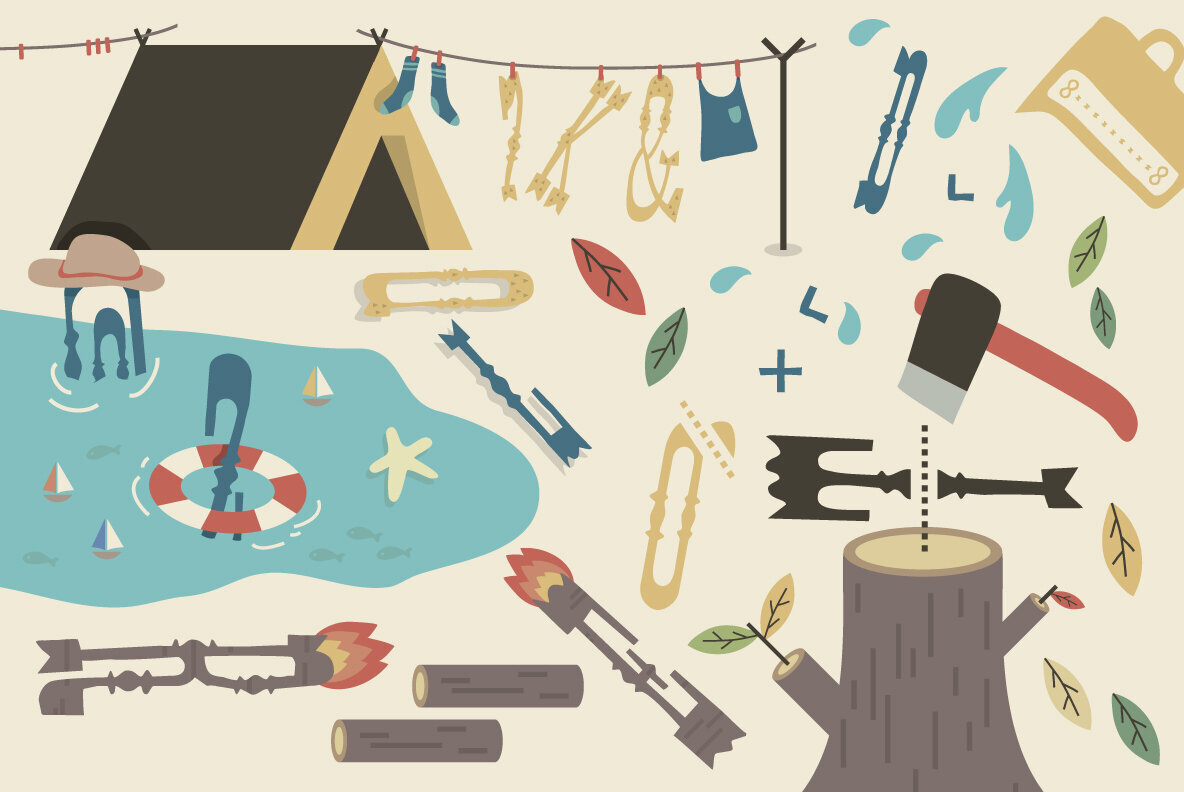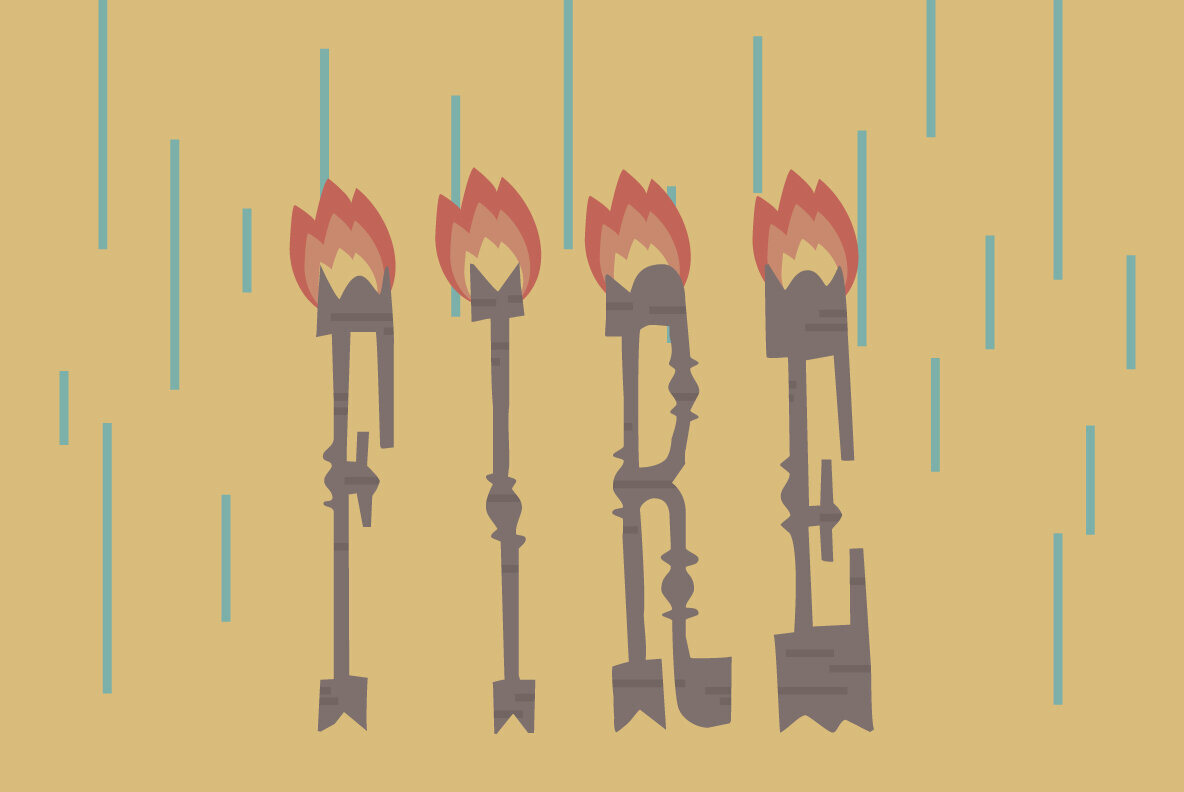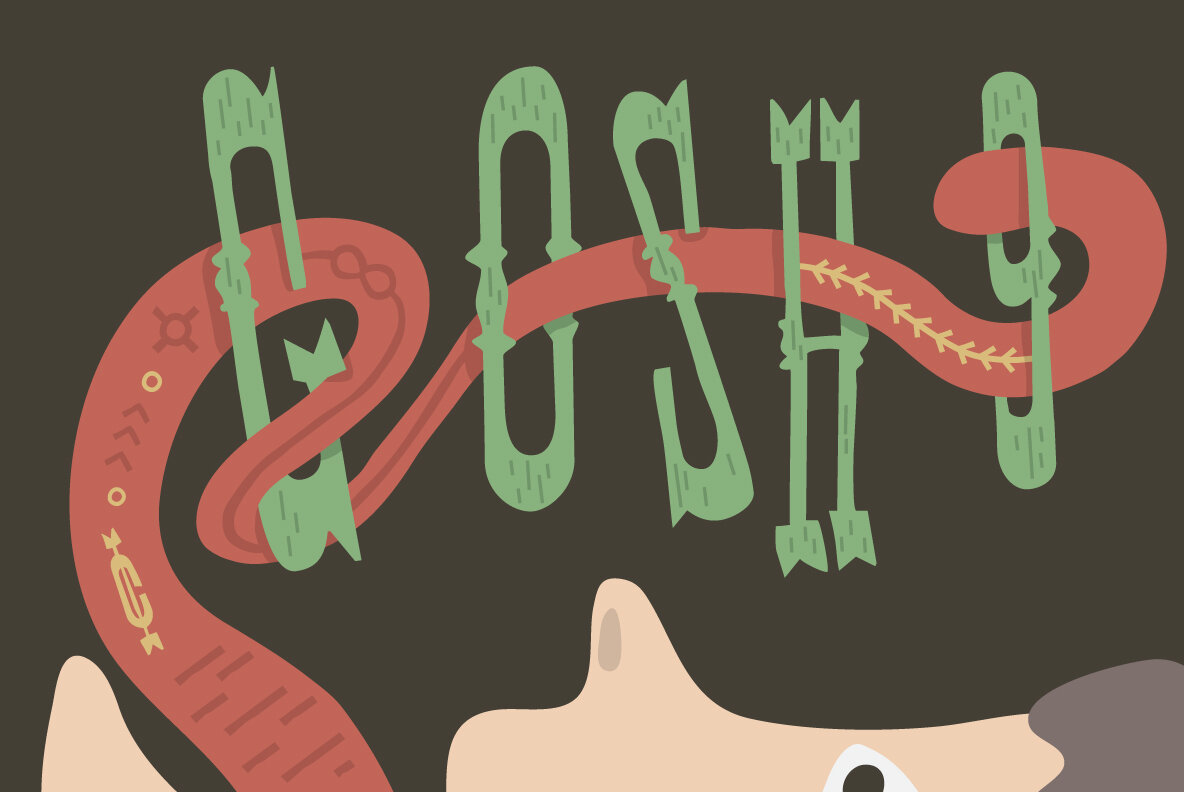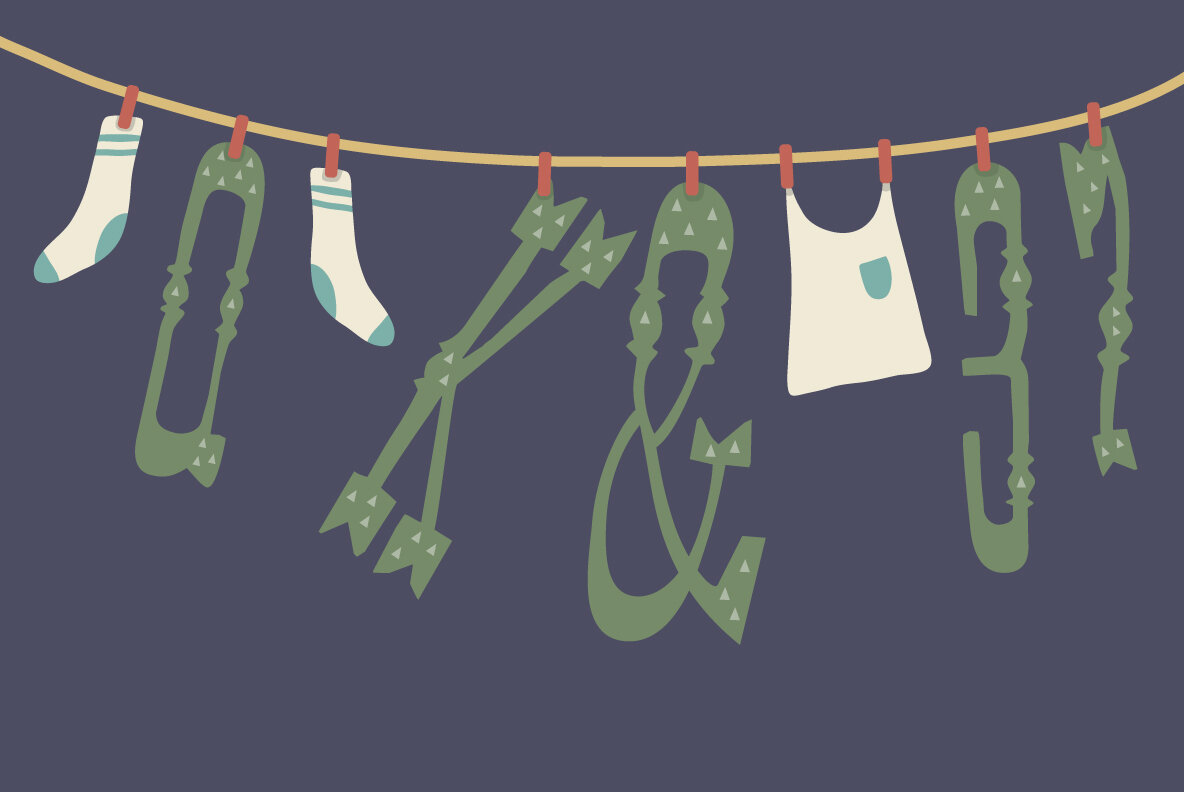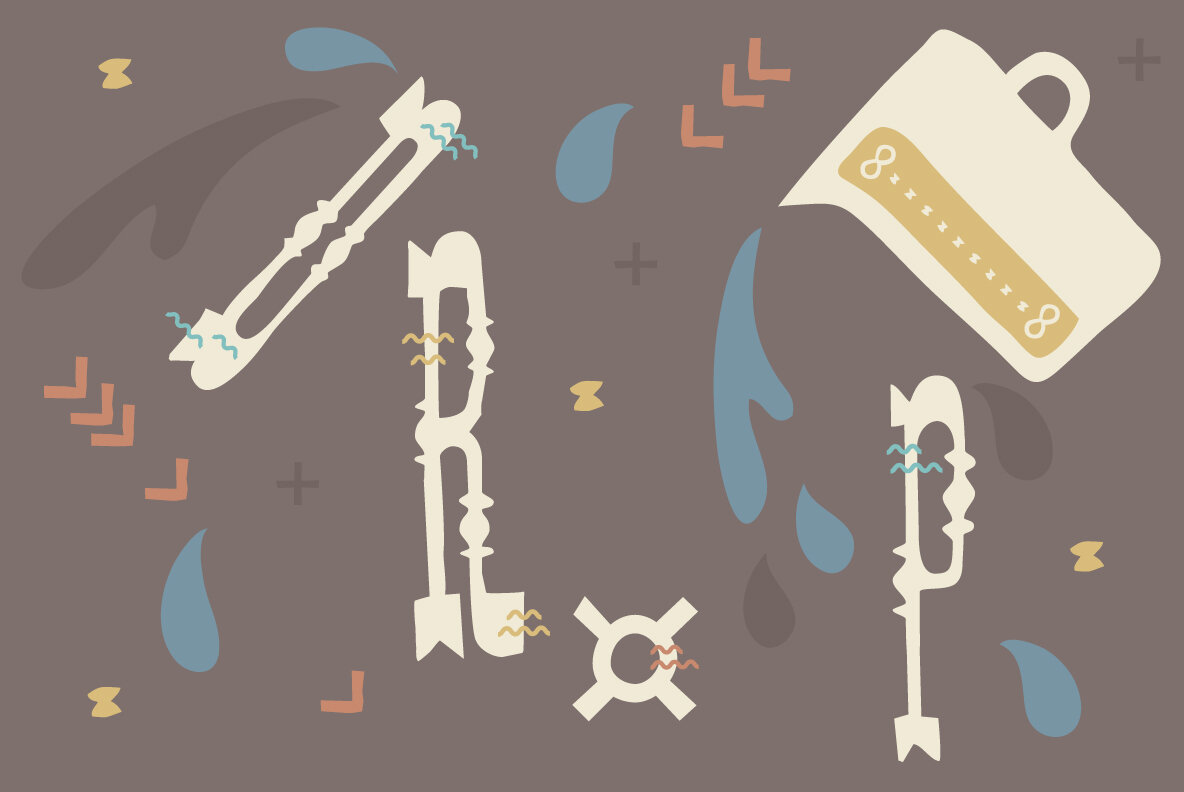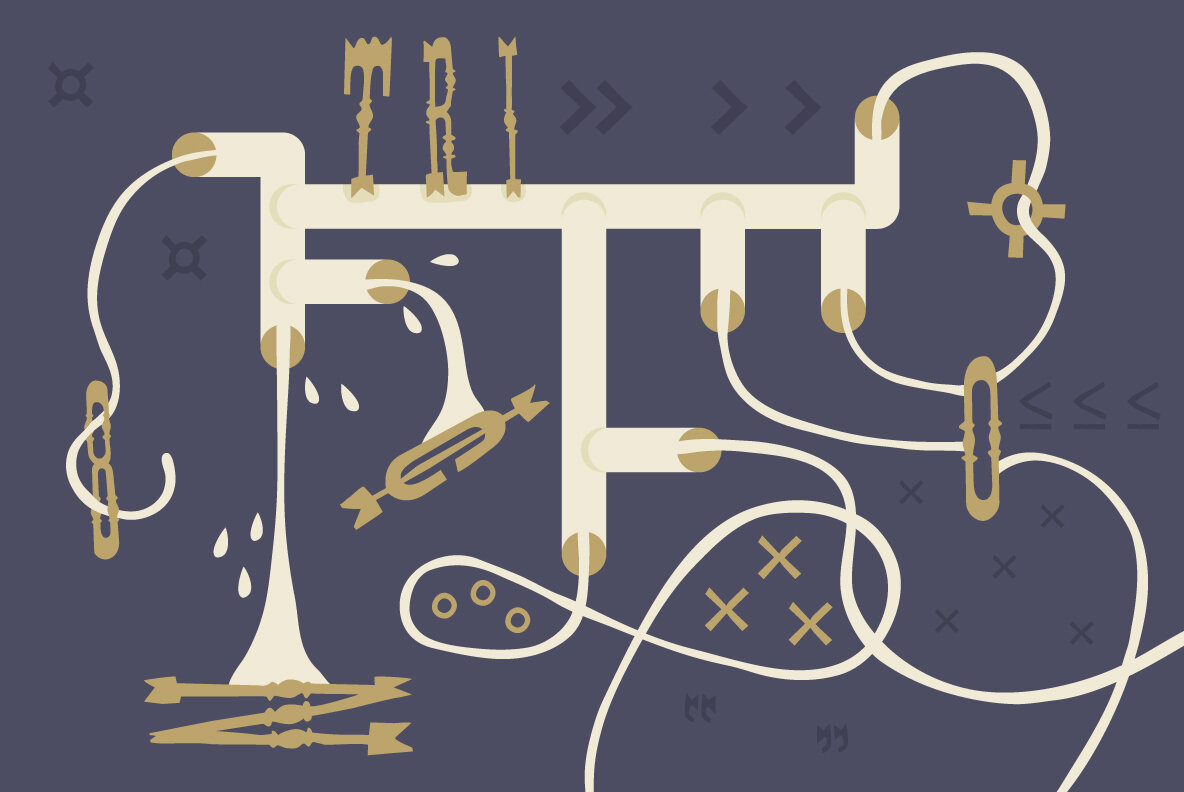
YWFT Tall Tex Font
YWFT Tall Tex
by YWFT Jeff Rogers
YWFT Tall Tex was originally a handset design by Jeff Rogers, now converted into a working system font by YouWorkForThem. The original cowboy and wild west influenced characters have been preserved beautifully and make this a unique and great choice for rustic, american and other quirky wood type based designs. Contains OpenType contextual alternates as well, extending the final amount of glyph designs.